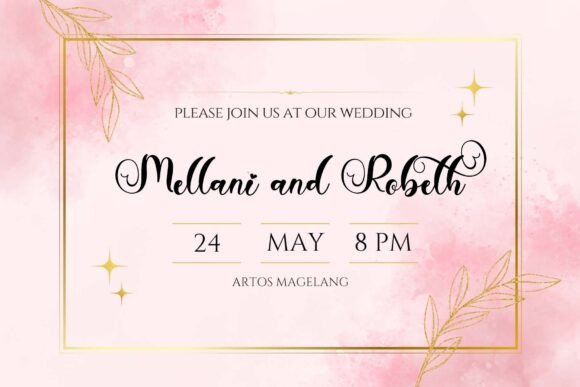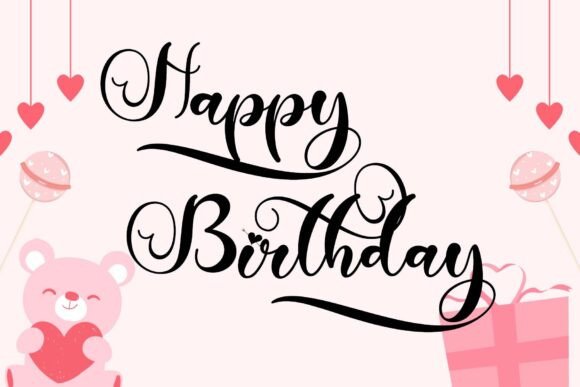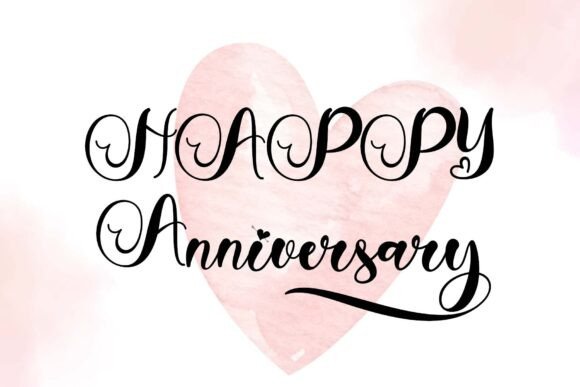
Introduction to Katarina Valentine Font
Do you remember the feeling of excitement and love when you first planned your wedding proposal? Or perhaps, the moment you decided to create a romantic invitation for a special someone? For designers, these moments are not just about expressing emotions but also about showcasing creativity. The Katarina Valentine Font is a perfect design resource for such occasions, offering a beautiful and pretty handwritten style that adds a touch of elegance to any project.
This versatile font is equipped with a range of features, including uppercase and lowercase letters, swashes, numerals, ligatures, and punctuations, making it ideal for a variety of creative projects. With multilingual support, designers can use it for branding, banners, stickers, posters, and other applications, knowing that their message will be conveyed clearly and effectively. Whether you’re looking for a high-quality font for a free download or a design resource for a paid project, the Katarina Valentine Font is an excellent choice.
- Unique Script Font Style: Katarina Valentine Font offers a distinctive script style perfect for creative projects that require a touch of elegance and sophistication.
- Perfect for Creative Projects: Katarina Valentine Font is ideal for use in creative projects such as wedding invitations, greeting cards, and other design elements that require a touch of elegance and sophistication.
Honest Review: Katarina Valentine Font
- Unique and elegant design style that adds a touch of sophistication to any project.
- High-quality design resource that’s perfect for creative projects requiring a romantic or vintage vibe.
One of the standout features of the Katarina Valentine Font is its ability to work well with transparent backgrounds, allowing designers to create visually striking and professional-looking designs.
- Limited character set, which may not be suitable for projects requiring a wide range of characters.
- No bold or italic font styles available, which may limit its versatility in certain design contexts.
Overall, I’m impressed with the Katarina Valentine Font and would recommend it to designers looking for a high-quality, free design resource for their next creative project.